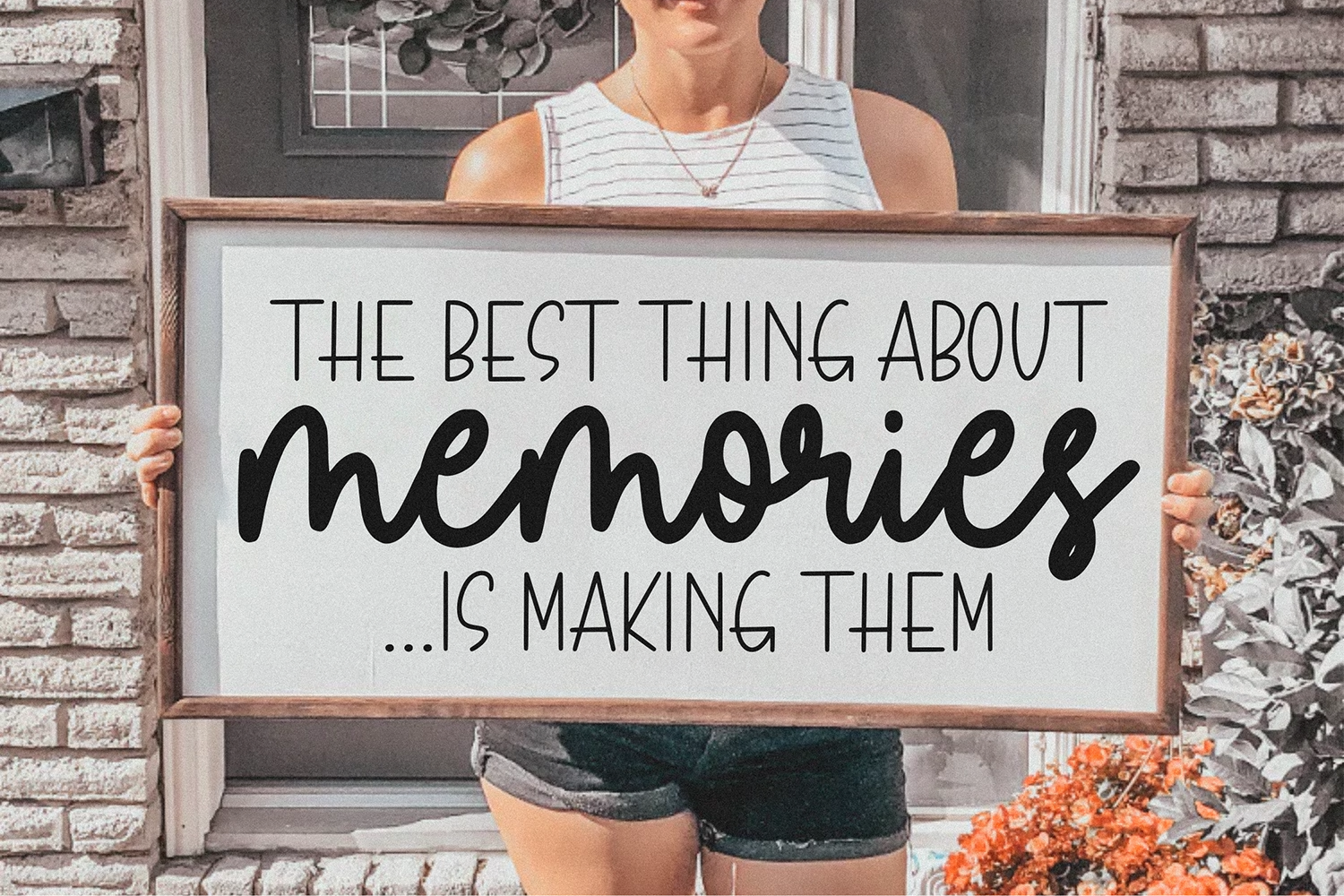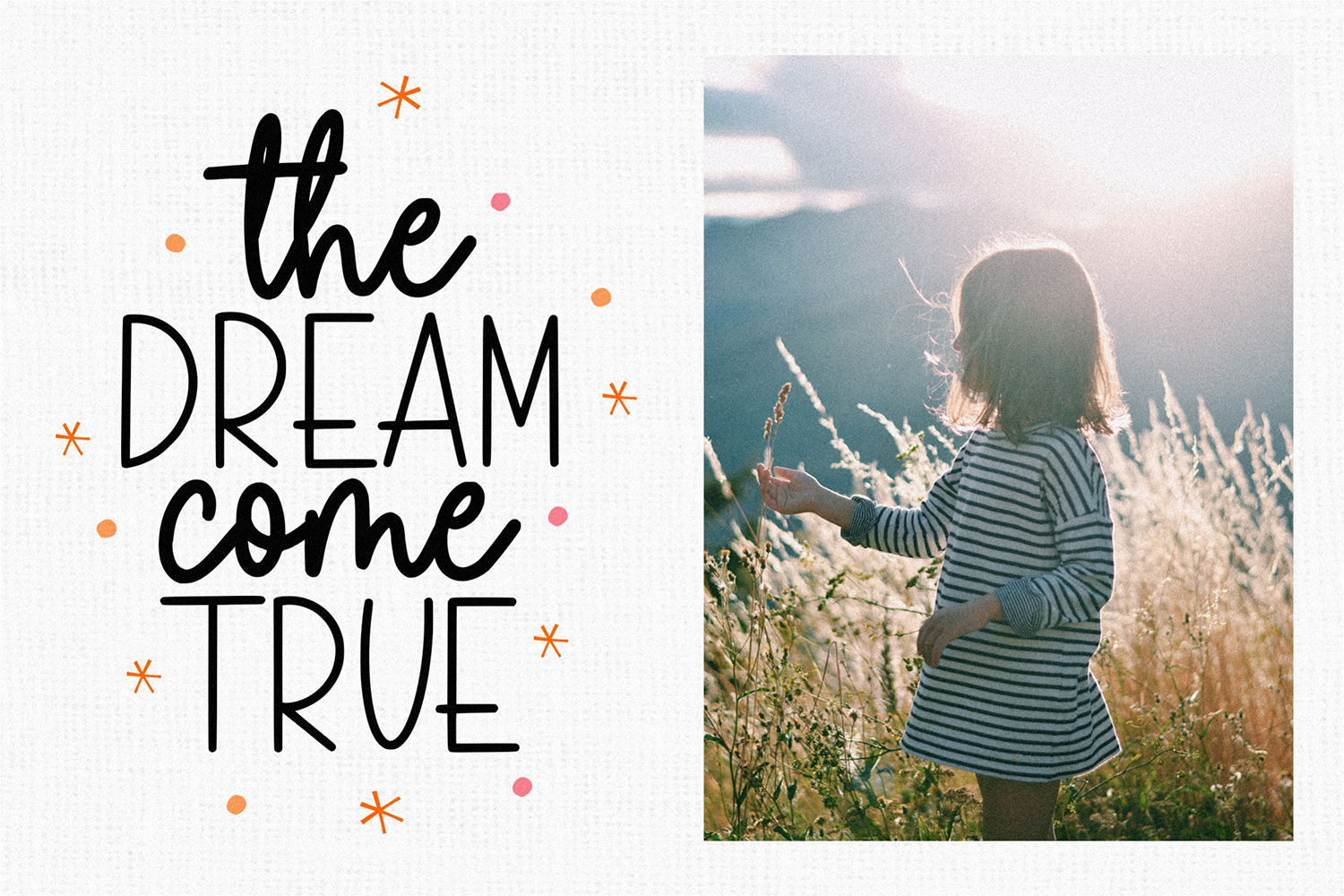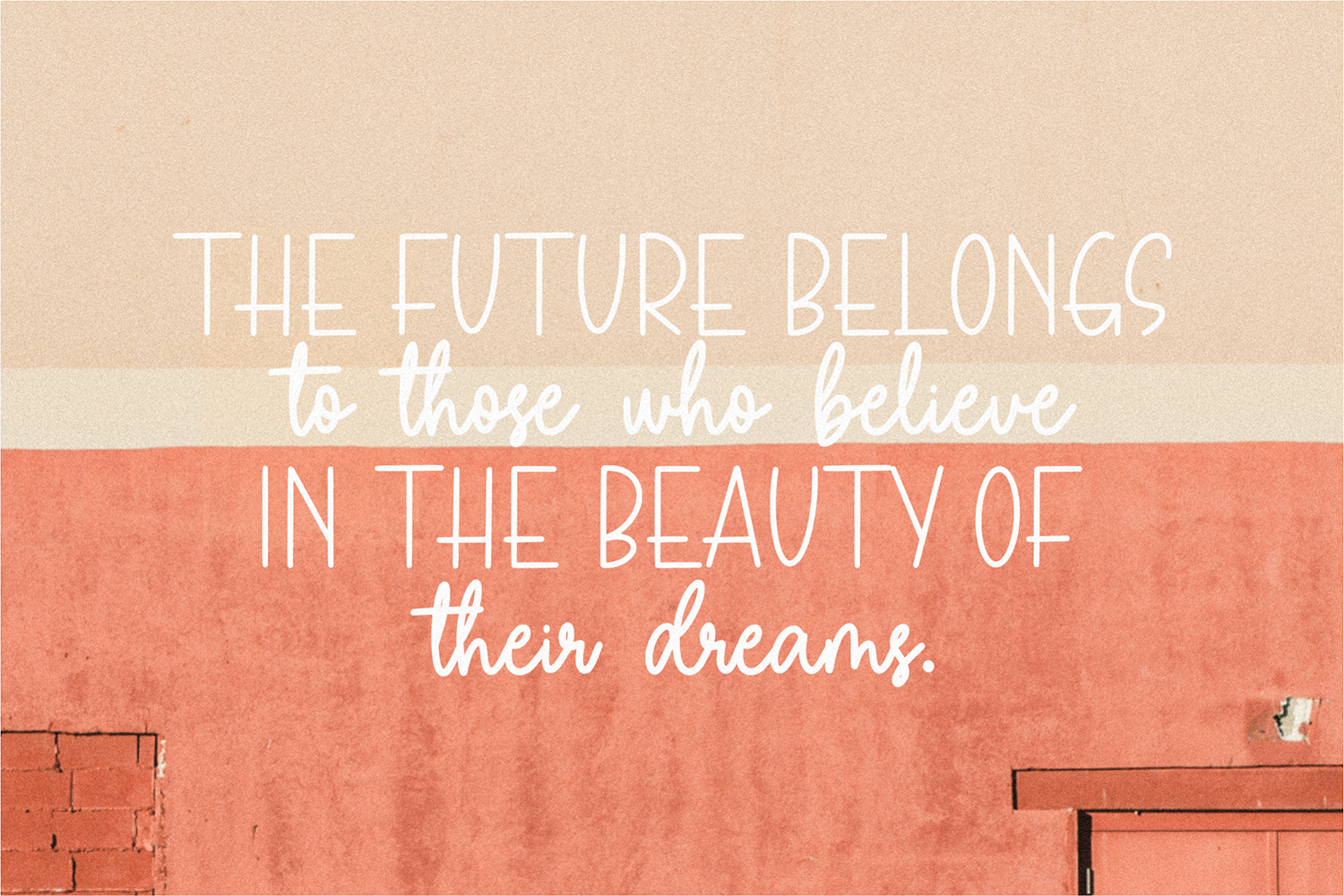
Popcorn Garden Free Font
Popcorn Garden Free Font is a fun and cute handwritten font duo (script and sans). Whatever the topic, this font will be a wonderful asset to your font library, as it has the potential to enhance any creation. This free typeface was designed by a talented Qwrtype Foundry. If you like it don’t forget to check out the full version.